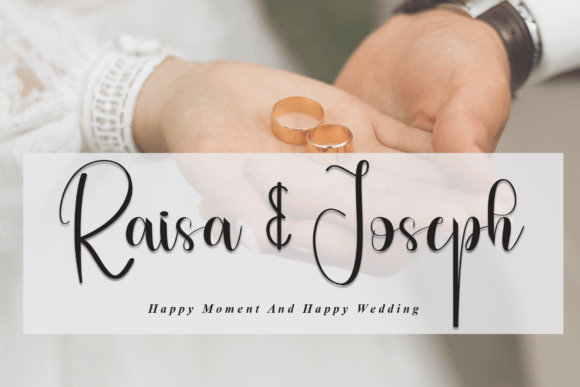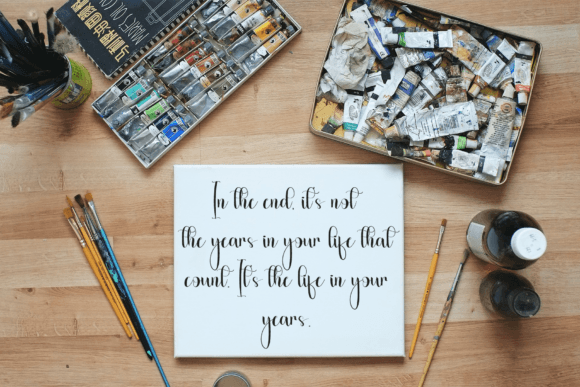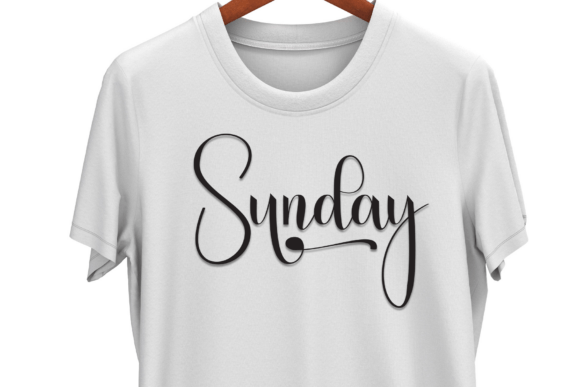
Introducing a charmingly playful and affable handwritten display font that exudes sweetness and friendliness.
Imbued with a delightful essence, this font is perfect for breathing life into wedding invitations, cards, or any other design endeavor that seeks to infuse a touch of whimsy and joy Unleash creativity with this adorable font that promises to transform simplistic text into fun-filled artistic expressions.
Baubles Font offers exceptional quality and versatility, making it a valuable addition to your design toolkit. Whether you’re creating for personal projects or commercial use, Baubles Font delivers professional results.